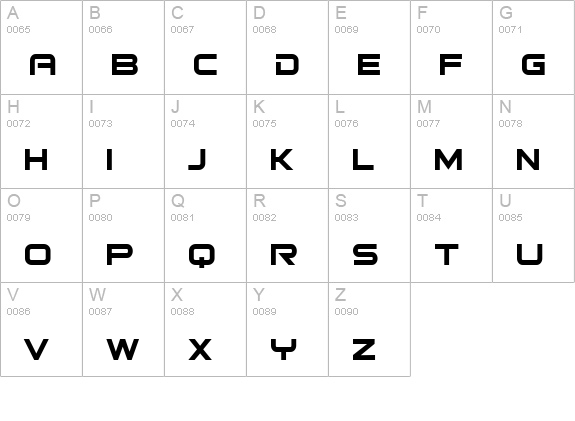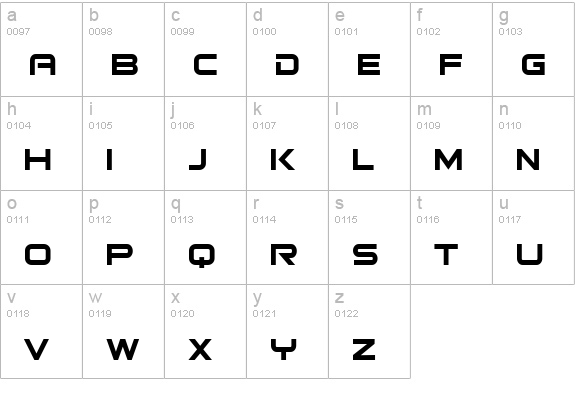
Bitsumishi is a captivating font that effortlessly combines modernity with a touch of edginess. Its sleek and sharp design is reminiscent of futuristic technology, making it perfect for projects that require a contemporary and forward-thinking aesthetic. With its unique letterforms and bold strokes, Bitsumishi commands attention and adds a sense of dynamism to any design. Whether it's for logos, headlines, or branding materials, this font exudes confidence and creativity. One of the best things about Bitsumishi is that it is free! Yes, you read that right. This remarkable font is freely available to download at FontsMarket.com, a trusted source for high-quality fonts. Now, you can elevate your designs without breaking the bank. Bitsumishi's versatility is another standout feature. It works seamlessly in various design styles, from tech-oriented projects to gaming and entertainment-related content. Its futuristic vibe adds a touch of sophistication, making it an excellent choice for sci-fi book covers, movie posters, or even digital art. The attention to detail in Bitsumishi is truly admirable. Each character is meticulously crafted, ensuring a polished and professional appearance. The font's clean lines and geometric shapes showcase the precision and skill behind its creation. Whether you're a professional designer or an aspiring artist, Bitsumishi is a font that will inspire and elevate your work. Its contemporary style, combined with its free availability at FontsMarket.com, makes it a must-have addition to your font library. Embrace the future of design and download Bitsumishi today. Unleash your creativity and watch as this font transforms your projects into stunning visual masterpieces.